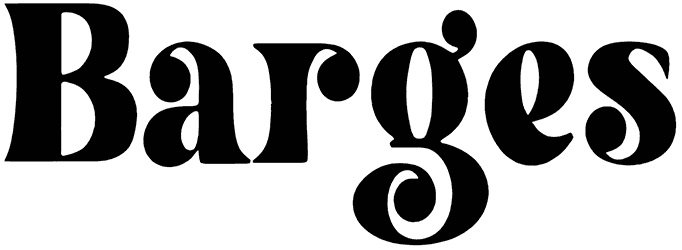
Barges Font
Sometimes, when you plan to have a chic and impactful presentation, a unique classic style can work better than any letterform, and this groovy font has the potential to do it. Barges font with its stylish mood supports…
Sometimes, when you plan to have a chic and impactful presentation, a unique classic style can work better than any letterform, and this groovy font has the potential to do it. Barges font with its stylish mood supports most of the characters. From a chic restaurant sign to a fashion advertising billboard, you can use this serif font and hook a lot of viewers.